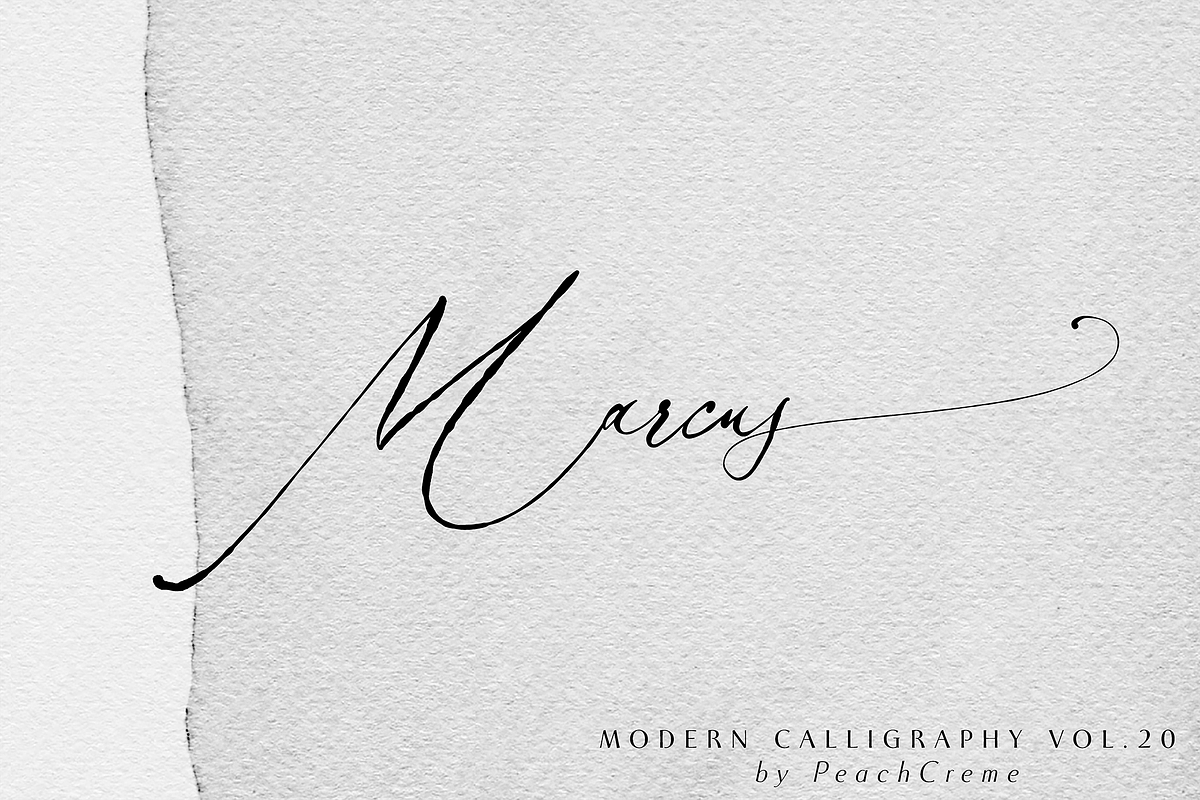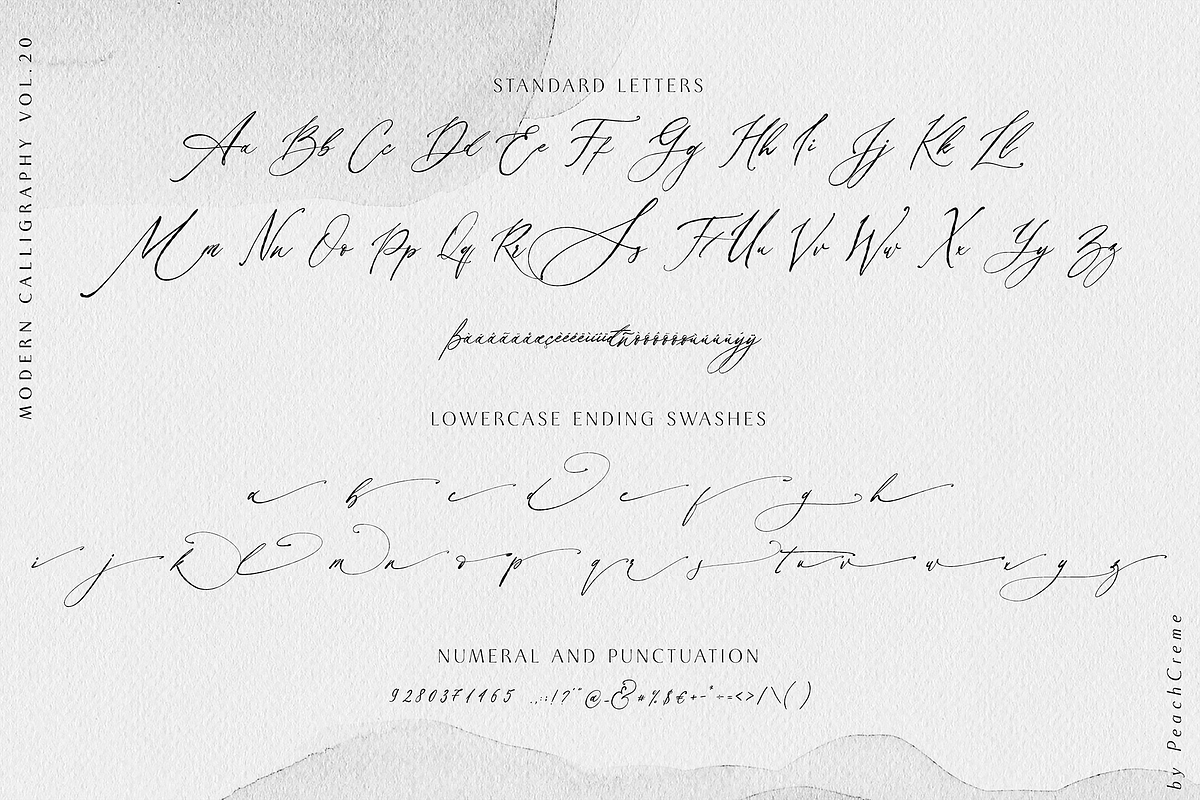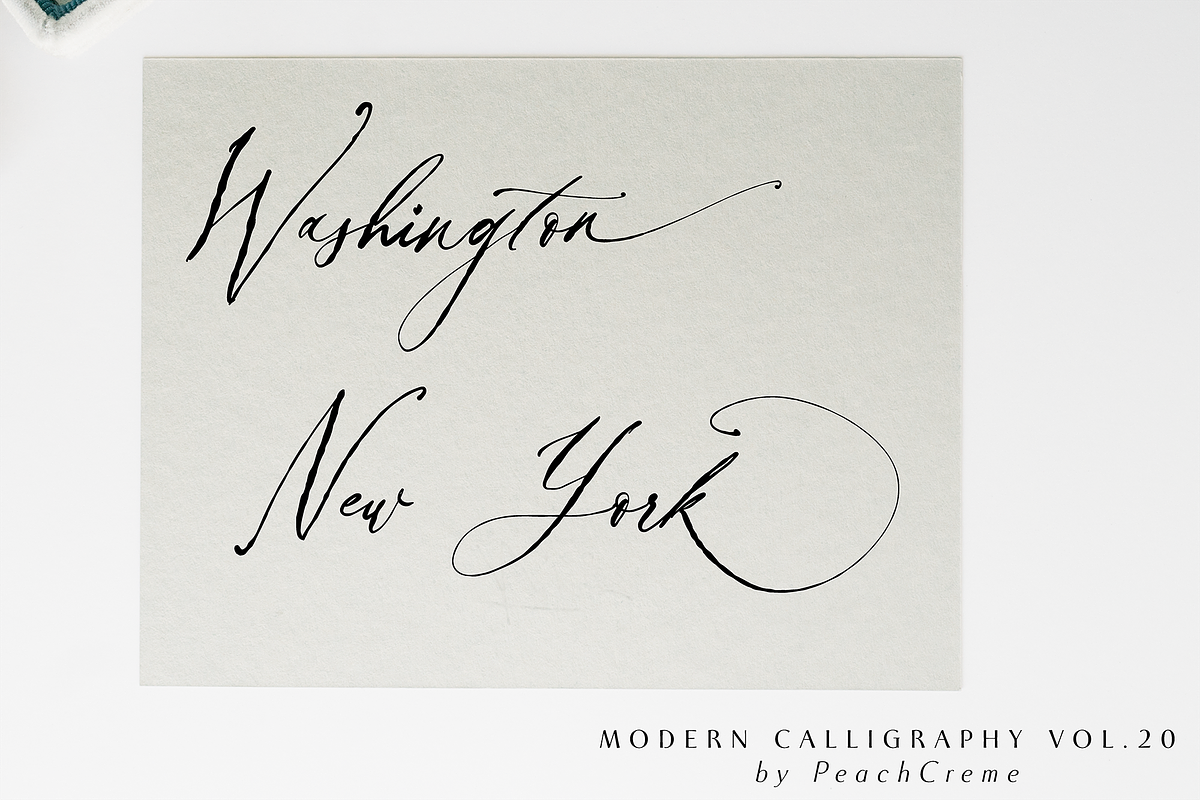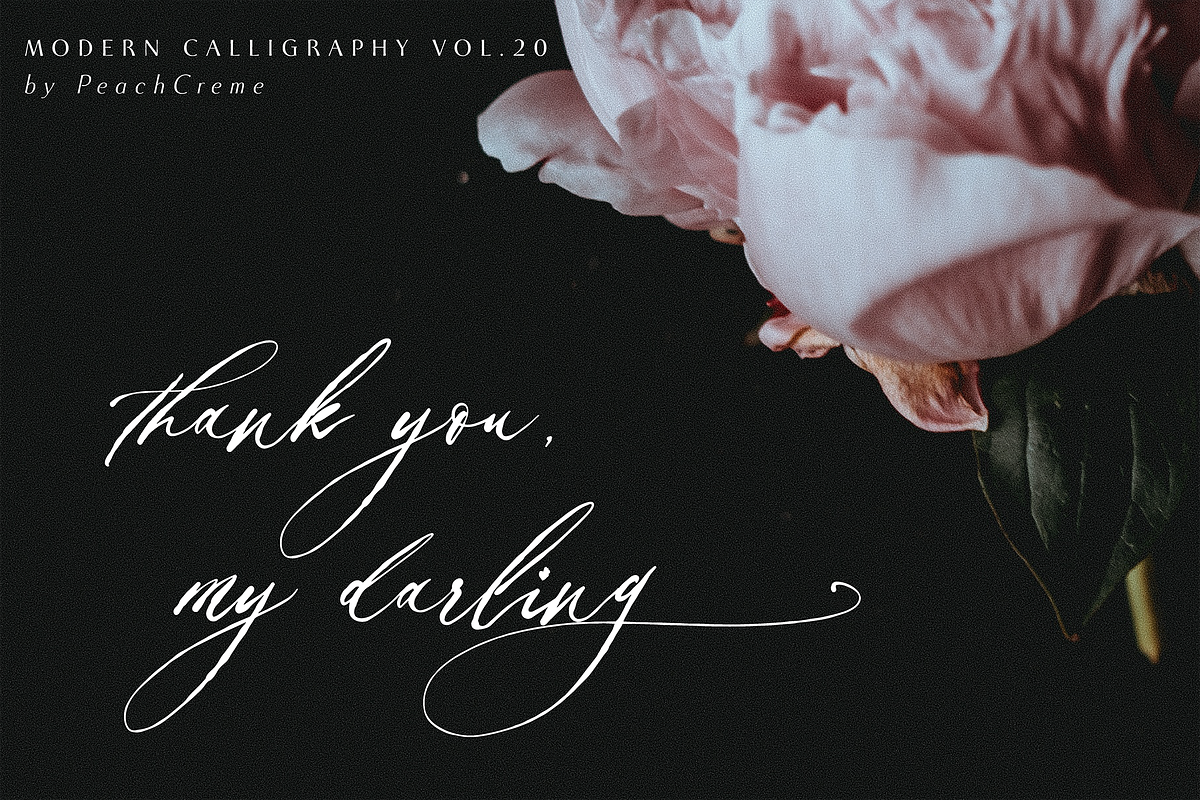
Balzak // Organic Calligraphy
ORGANIC TYPOGRAPHY VOL.20
Ink. Messy Ink. Imperfect letters. This is about Balzak font. Or you like it, or you hate this font.
Balzak includes uppercase and lowercase letters, numerals, a large range of punctuation and ligatures. All lowercase letters include ending swashes.